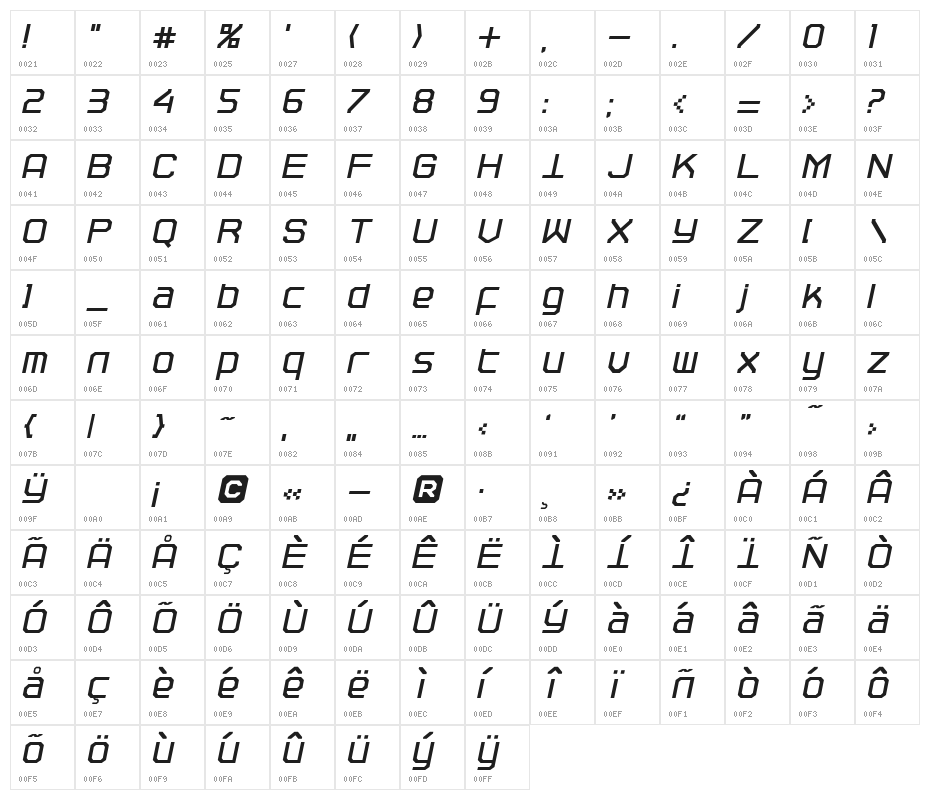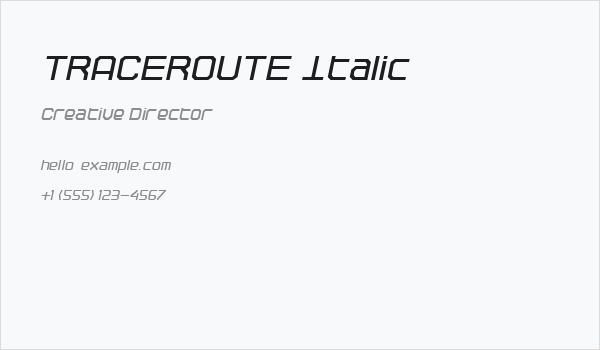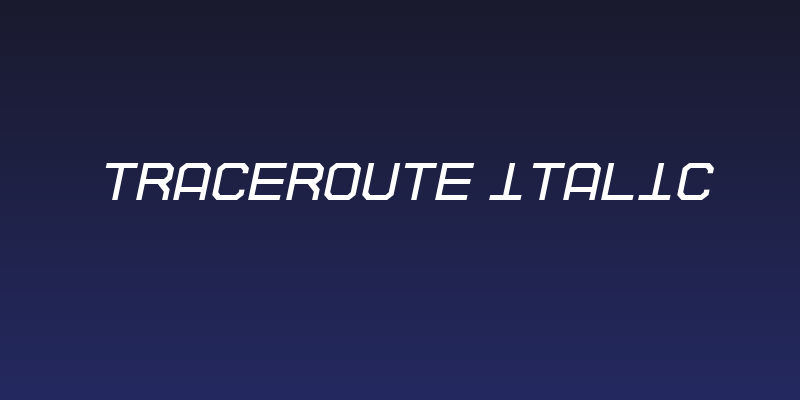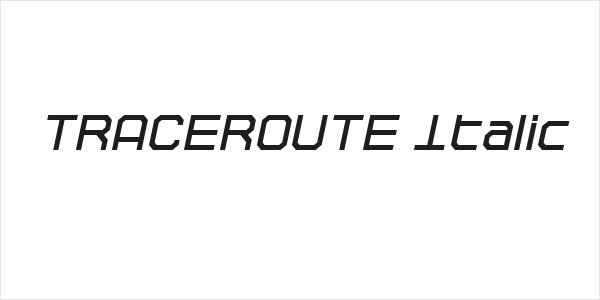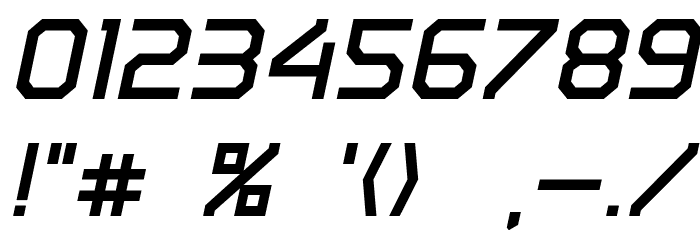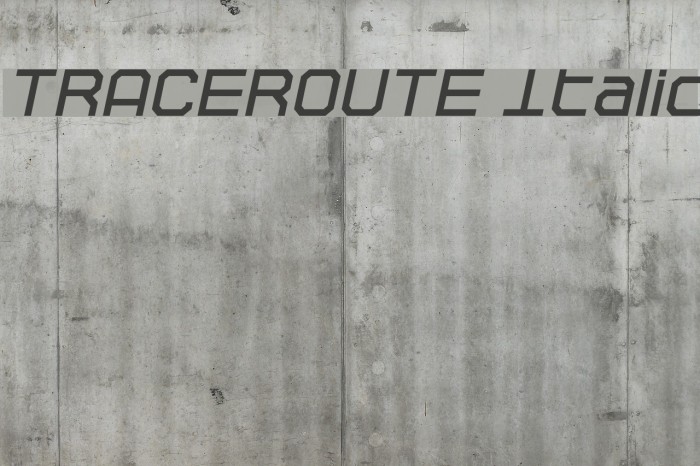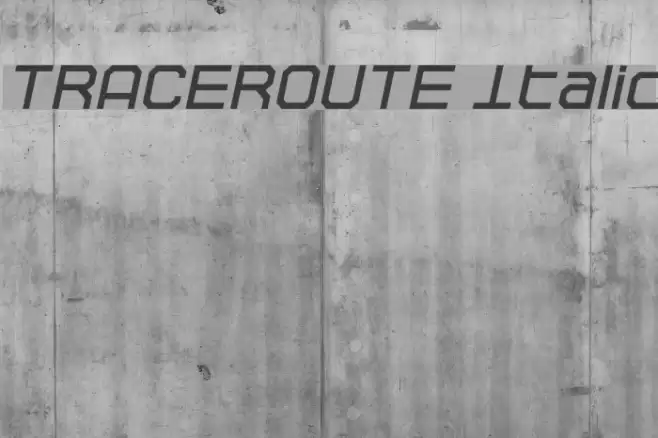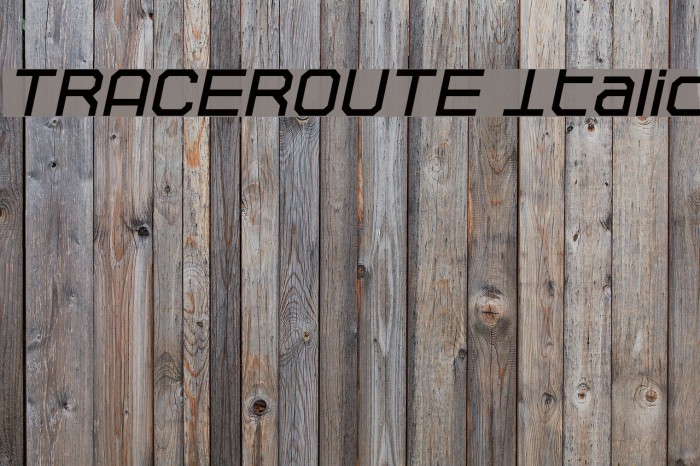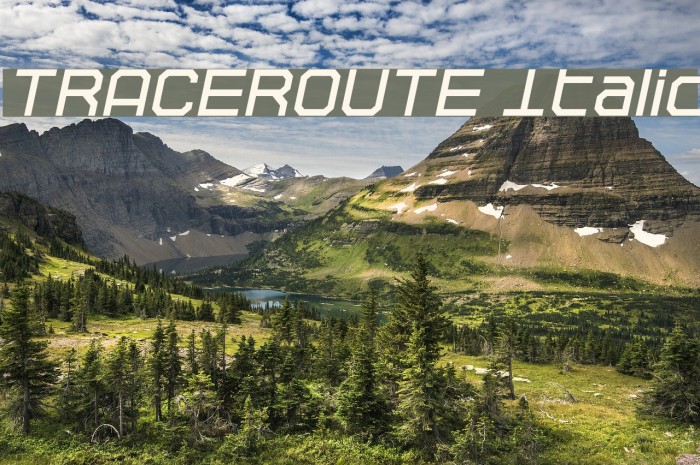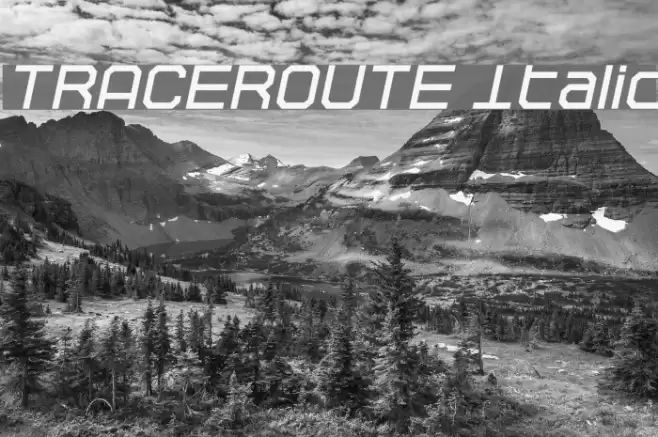
TRACEROUTE Italic Font
TRACEROUTE Italic Description
This font features a modern, angular design with a distinct italic slant, giving it a dynamic and forward-moving appearance. The characters are constructed with clean, straight lines and sharp edges, creating a futuristic and technical aesthetic. The uppercase and lowercase letters maintain a consistent style, with the uppercase being slightly more elongated. The numerals and special characters follow the same geometric design principles, ensuring uniformity across all glyphs. The overall look is sleek and contemporary, suitable for projects that require a sense of speed and innovation.
| Use Case | Logos, Headlines, Branding |
| Proposed Projects | Ideal for technology branding, sports team logos, automotive advertisements, and sci-fi themed designs. |